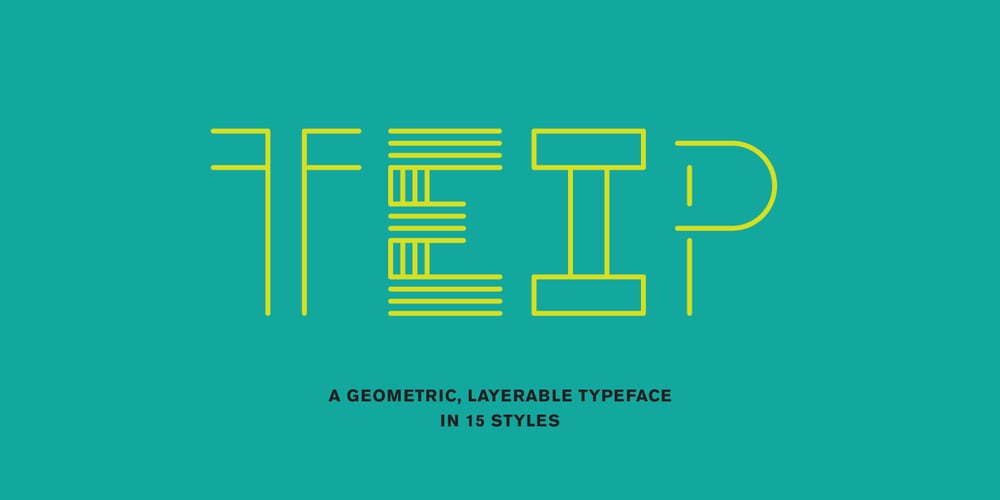
Teip
Teip font
Teip Font Family was designed by Alex Jacque and published by Alex Jacque. Teip contains 15 styles and family package options. Teip, designed by Alex Jacque in 2014, is a layerable geometric typeface system. Teip developed as a typographic exploration of overlapping tape where a over/under, foreground/background interplay would be a stylistic motif throughout. For the most part, the uppercase characters have a vertical stress in the foreground, while lowercase have the horizontal stressed in the foreground. Because this is a unicase typeface, upper and lower case glyphs can be mixed for a more random feel in the shape of individual words and the flow of sentences. In Teip, glyph widths and kerning are the same across all styles and weights. This opens up the ability to easily layer one style on top of another to create a large number of color and stylistic combinations.